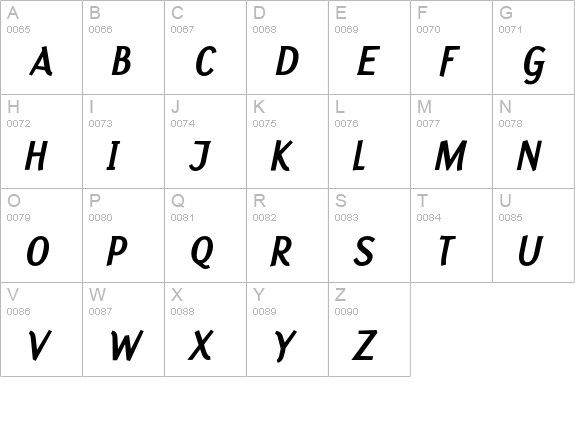
Fasciani-Senza-ExtraBoldItalic Font Details
Fasciani-Senza-ExtraBoldItalic is a striking and bold font that exudes elegance and sophistication. Its extra bold weight commands attention and makes a powerful statement in any design project. The italicized style adds a touch of flair and modernity, perfect for creating eye-catching headlines or adding emphasis to text. This unique typeface is ideal for branding, editorial design, advertising, and more. Its sleek and contemporary look sets it apart from traditional fonts, making it a versatile choice for various applications. Whether used for print or digital projects, Fasciani-Senza-ExtraBoldItalic is sure to leave a lasting impression on viewers. The best part is that this exceptional font is available for free download at FontsMarket.com. Now you can elevate your designs with this premium typeface without breaking the bank. Don't miss out on the opportunity to add Fasciani-Senza-ExtraBoldItalic to your font collection today!